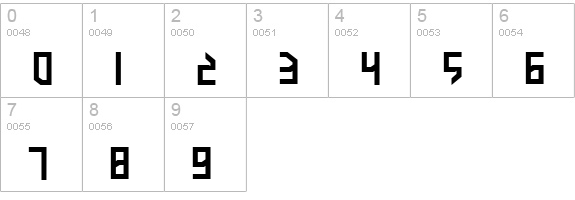
Valkyrie Expanded is a distinctive, extended-width variant in the Valkyrie typeface family \xE2\x80\x94 well suited to design and typography projects.
Valkyrie Expanded font is a stunning display typeface that exudes elegance and power. With its bold and unique design, this font is perfect for making a statement in any project. The extended letterforms add a touch of sophistication, making it ideal for headlines, posters, and branding materials. What sets Valkyrie Expanded font apart is not only its striking appearance but also the fact that it is available for free download at FontsMarket.com. This means that you can easily access this premium font without any cost, adding value to your design projects without breaking the bank. Whether you're looking to elevate your designs with a bold and eye-catching typeface or simply want to add a touch of flair to your work, Valkyrie Expanded font is the perfect choice. Download it for free today and unleash your creativity with this stunning font.